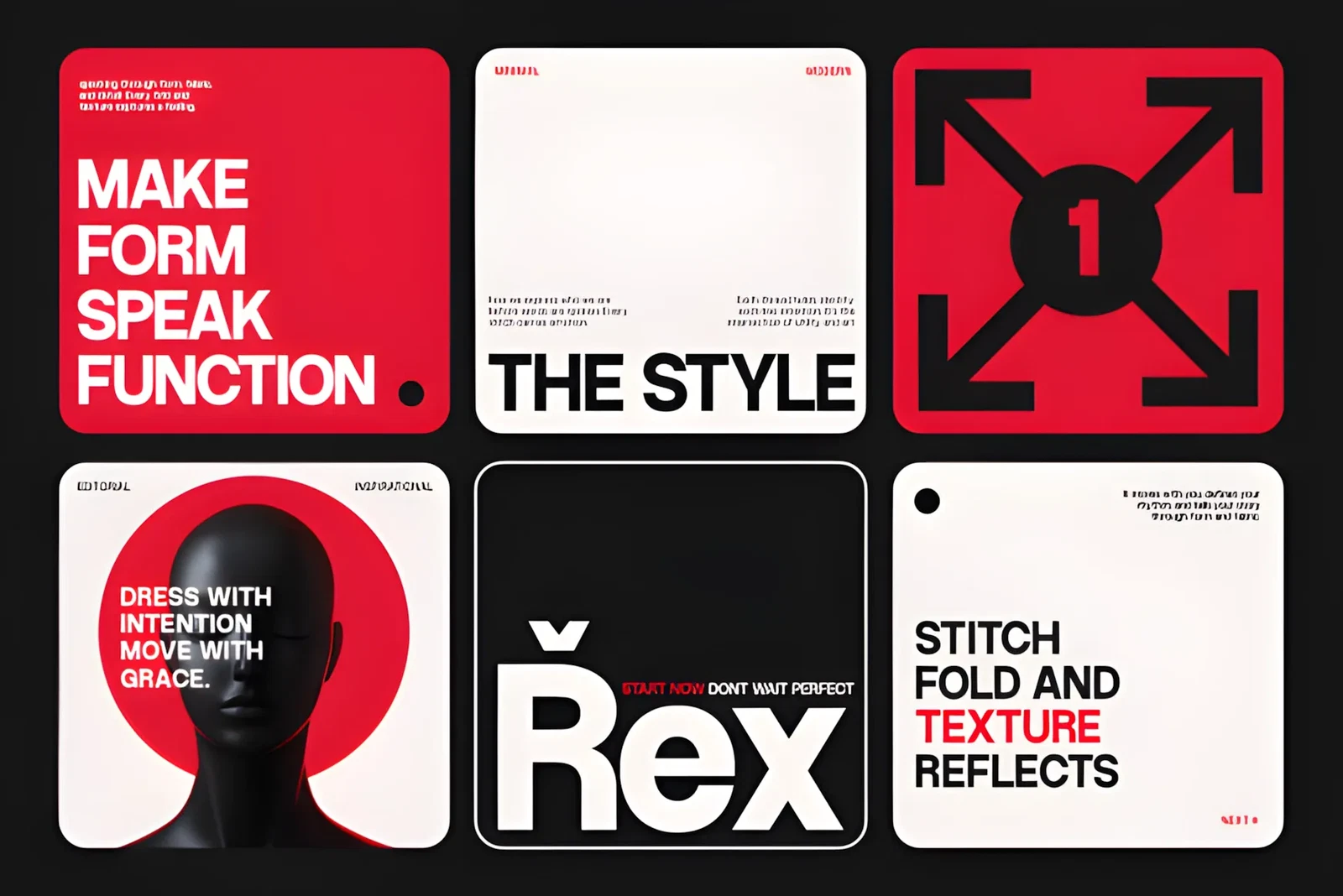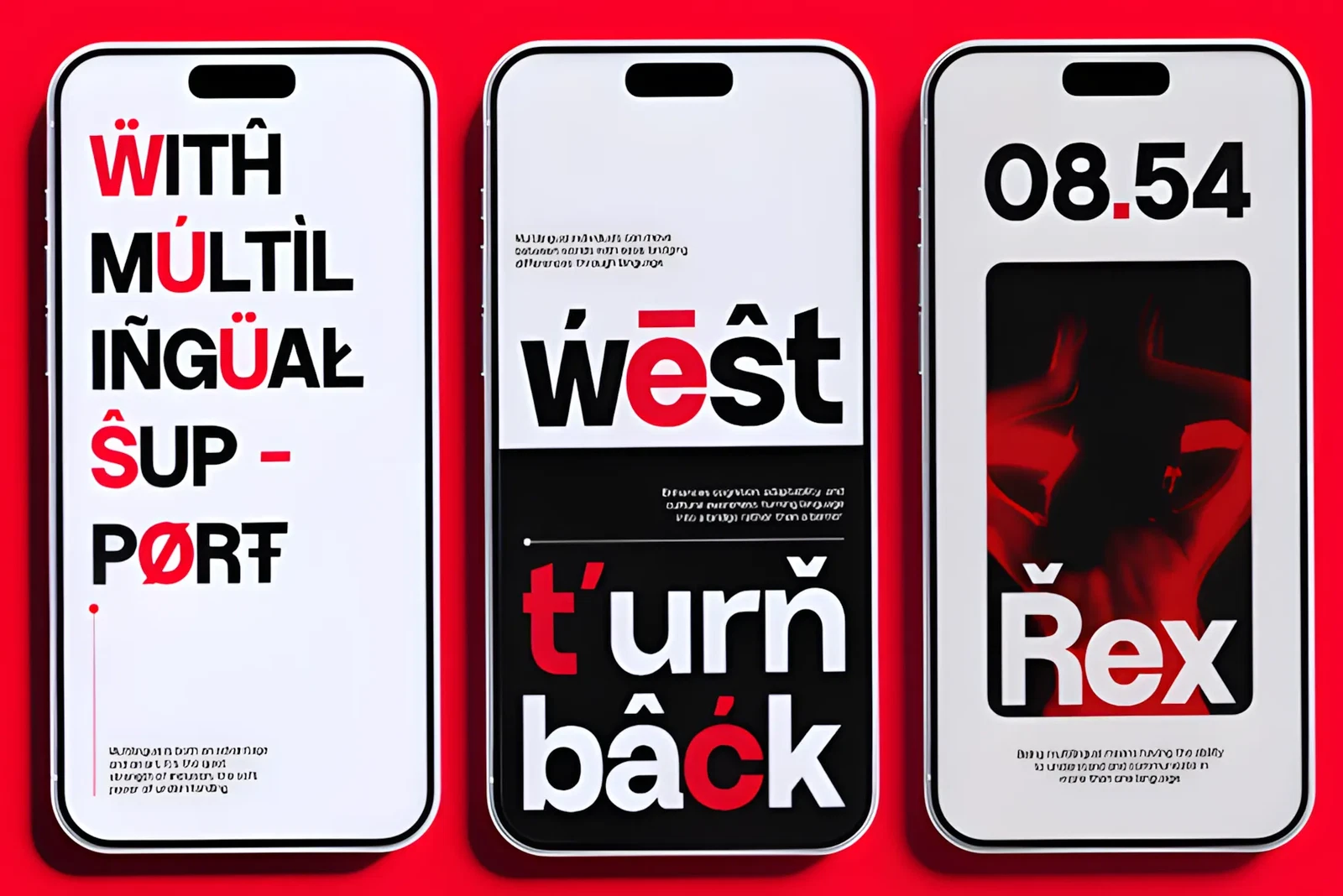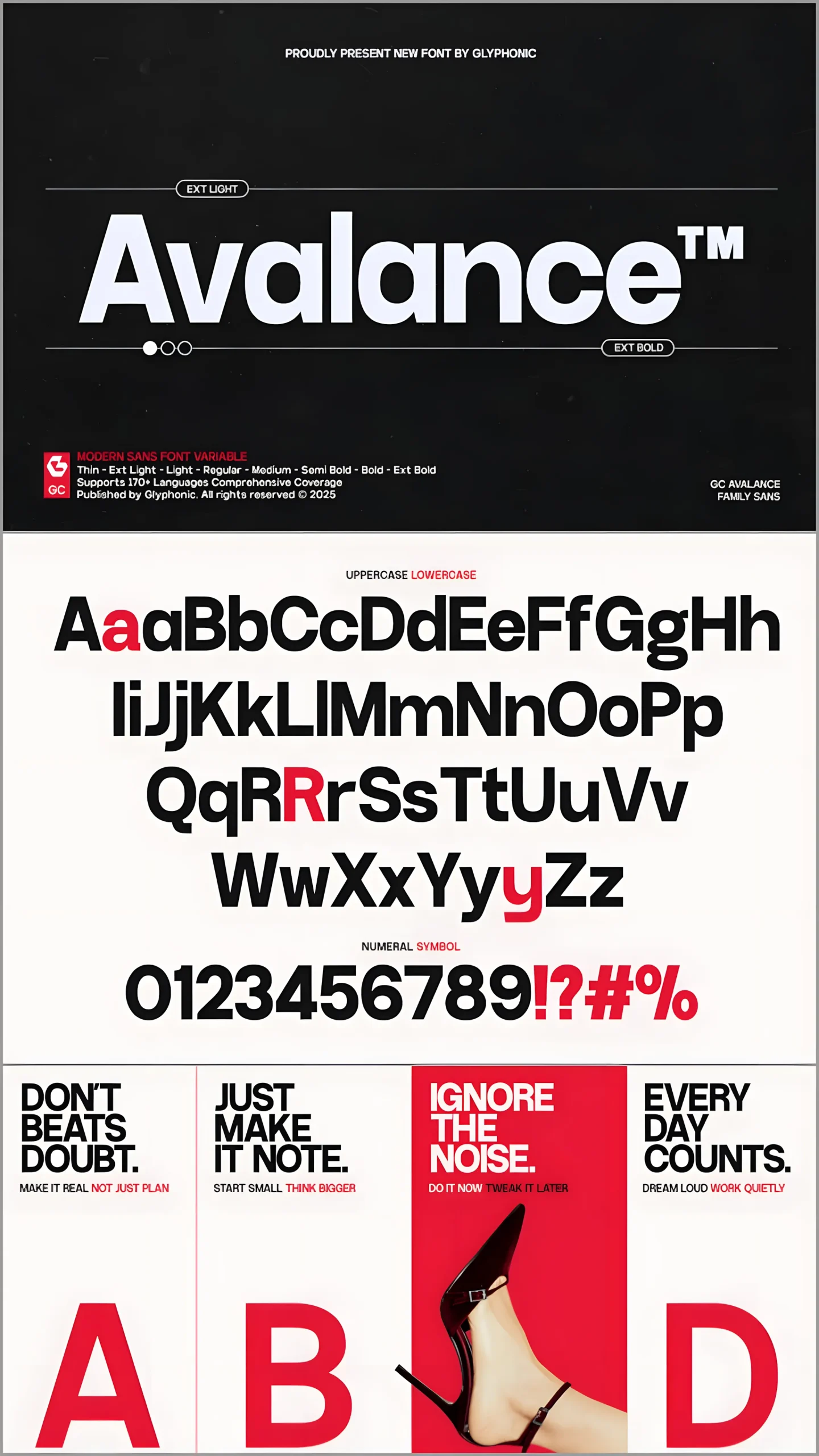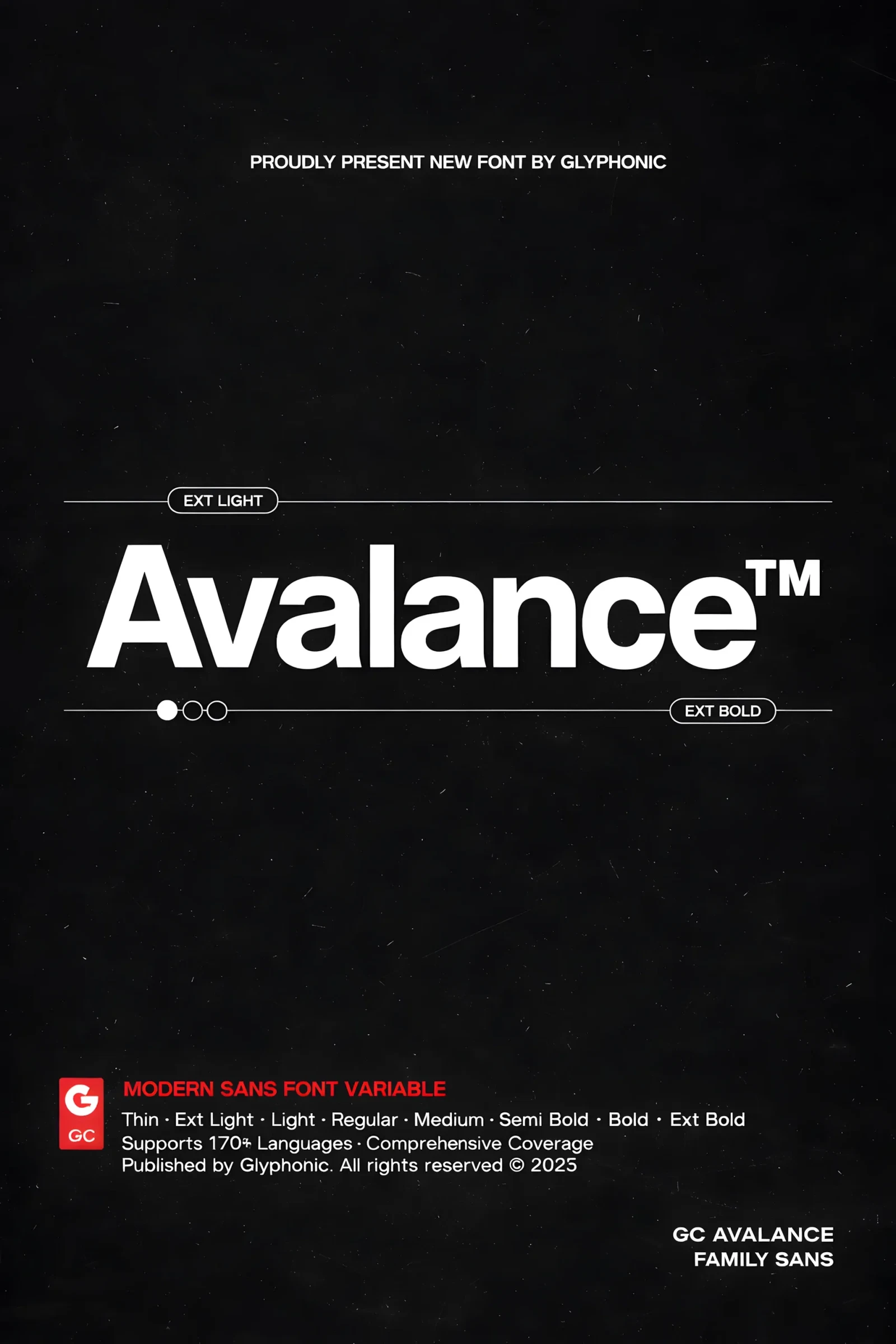
Typography defines structure long before color or imagery comes into play. Avalance Font is built for designers who value precision, balance, and modern clarity. This sans-serif typeface is designed to perform across branding, editorial layouts, and digital interfaces without sacrificing readability or visual confidence.
Avalance feels controlled and contemporary. It doesn’t rely on decoration or trends, instead focusing on structure, rhythm, and typographic discipline — qualities that make it suitable for long-term professional use.
A Variable Font Built for Control
Avalance is a modern variable sans-serif font, allowing smooth control across a wide range of weights. Designers can move seamlessly from thin to ultra-bold styles, adjusting tone and emphasis without switching typefaces.
This flexibility makes it possible to fine-tune hierarchy, contrast, and visual weight while maintaining consistency throughout a project. Whether the goal is subtle elegance or strong visual impact, Avalance adapts naturally.
Visual Character and Design Language
The font is defined by clean geometric forms and generous letter spacing. This creates a sense of openness and clarity, even in dense layouts. Curves are smooth, strokes are balanced, and proportions feel intentional rather than mechanical.
Key visual traits include:
- modern grotesk-style structure
- wide, breathable spacing
- consistent rhythm across weights
- strong clarity at large and small sizes
The result is a typeface that feels confident, neutral, and distinctly modern.
Designed for Readability Across Platforms
Avalance performs equally well in print and digital environments. Its even rhythm and controlled proportions ensure legibility in:
- headlines and titles
- body text
- interface elements
- editorial layouts
Text remains clear on screens, making the font especially effective for web design, dashboards, and digital publications.
Ideal Use Cases in Professional Design
Branding and Corporate Identity
Avalance is well suited for brand systems that require consistency and professionalism. It works especially well for:
- corporate branding
- technology companies
- startups and product brands
- visual identity systems
The neutral tone allows logos and brand names to feel modern without appearing generic.
Editorial and Publishing
In editorial contexts, Avalance brings structure and calm. It fits naturally into:
- magazines
- reports and presentations
- digital publications
- marketing content
The wide weight range allows designers to build hierarchy without introducing additional fonts.
UI, Web, and Digital Products
Avalance was designed with digital use in mind. It scales cleanly across devices and resolutions, making it suitable for:
- websites and landing pages
- user interfaces
- mobile and desktop applications
The font can also be easily converted into a webfont, supporting modern UI and UX workflows.
Multilingual and Technical Support
Avalance supports 170+ languages, making it suitable for international projects. It also includes advanced OpenType features and PUA-encoded glyphs, allowing easy access to special characters and symbols.
Because it avoids short-lived stylistic trends, the font remains relevant over time, making it a reliable investment for designers and agencies.
Why Neutral Modern Fonts Stay Relevant
Fonts like Avalance remain in demand because they prioritize clarity, flexibility, and structure. They allow content to take center stage while providing a clean, professional framework.
Avalance succeeds by combining modern aesthetics with technical precision — a balance that works across industries and platforms.
Who Avalance Font Is Best For
Avalance is especially well suited for:
- graphic and brand designers
- editorial designers
- UI and UX professionals
- agencies and studios
- anyone building clean, modern design systems
It works equally well for branding, long-form content, and digital interfaces.
Final Perspective
Avalance Font is built around clarity, control, and modern discipline. Its variable structure, wide language support, and clean geometry make it a powerful tool for professional design work.
For designers looking for a contemporary sans-serif that delivers flexibility without visual noise, Avalance offers a strong, future-ready typographic foundation.